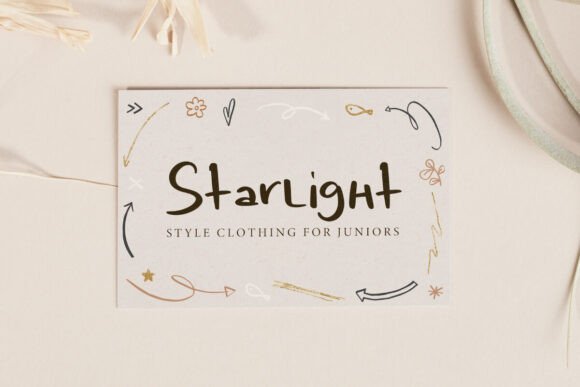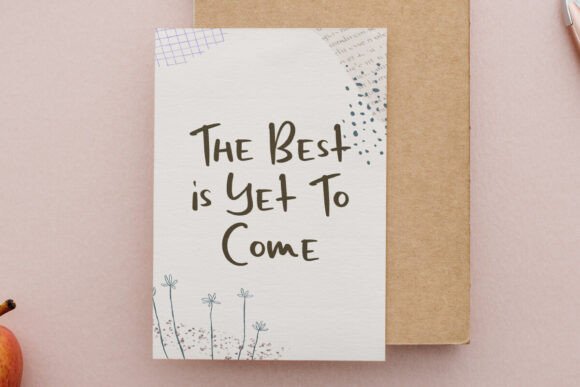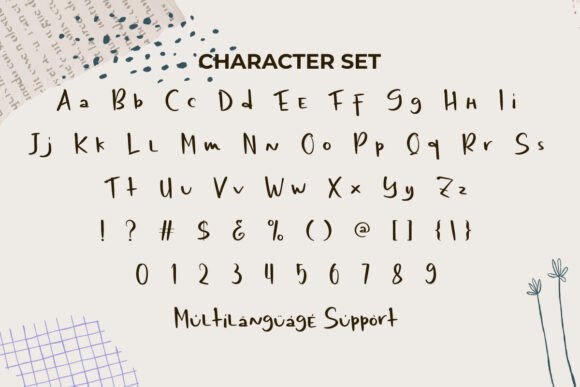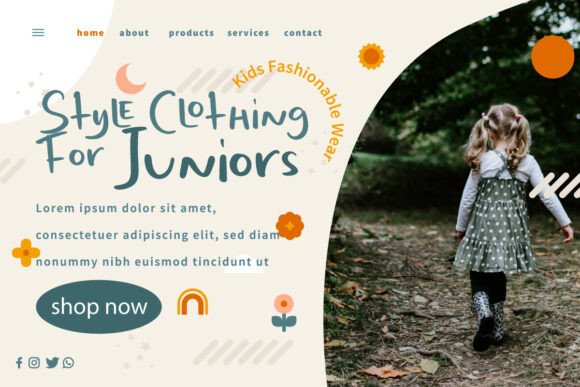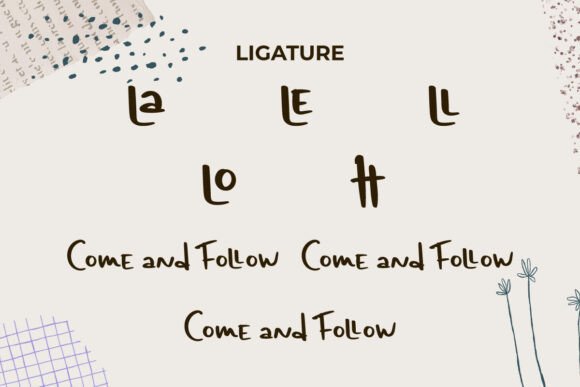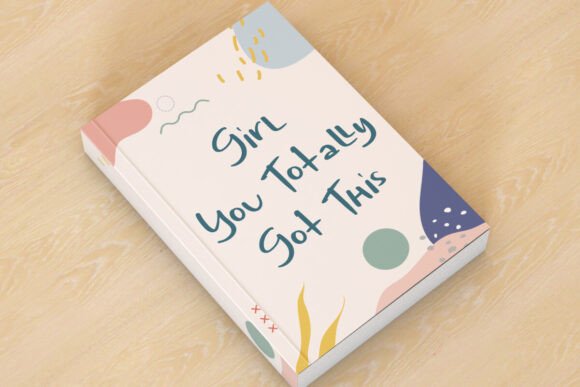
Introducing Come and Follow Font: The Perfect Addition to Your Design Arsenal
Are you tired of using the same old fonts in your designs? Look no further! Come And Follow Font is here to bring a fresh and exciting touch to your creative projects. This fun and friendly font is designed to add a handcrafted feel to your designs, making them stand out from the crowd.
What Makes Come And Follow Font So Special?
Come And Follow Font is a versatile typeface that can be used in a wide range of design applications. Whether you’re working on a blog, brand identity, brochure, business cards, or any other project, this font is sure to brighten up your design. Its unique handcrafted touch gives it a personal and approachable feel, making it perfect for both formal and informal events.
With Come And Follow Font, the design possibilities are endless! Here are some ideas to get you started:
- Blogs: Add a personal touch to your blog posts and make them more engaging with this charming font.
- Brand Identity: Create a unique and memorable brand identity with Come And Follow Font.
- Brochures: Make your brochures stand out with this fun and friendly font.
- Business Cards: Create professional and stylish business cards that will leave a lasting impression.
- Covers: Design eye-catching book covers, magazine covers, or any other type of cover with this versatile font.
- Flyers: Create attention-grabbing flyers for events, promotions, or announcements.
- Greeting Cards: Design personalized and heartfelt greeting cards for special occasions.
- Headers: Add a touch of personality to your website headers or section headings.
- Invitations: Create beautiful and unique invitations for weddings, parties, or other events.
- Logo Design: Use Come And Follow Font to create a custom logo that reflects your brand’s personality.
- Pamphlets: Design informative and engaging pamphlets for educational or promotional purposes.
- Quotes: Create inspiring and visually appealing quote graphics.
- Screen Print: Design stunning screen prints for t-shirts, posters, or other materials.
- Titles: Use Come And Follow Font to create attention-grabbing titles for your designs.
- Websites: Add a personal touch to your website with this charming font.
Why Choose Come And Follow Font?
So, why should you choose Come And Follow Font for your design projects? Here are just a few reasons:
- Unique and Handcrafted: This font has a unique, handcrafted touch that sets it apart from other fonts.
- Versatile: Come And Follow Font can be used in a wide range of design applications, from formal to informal events.
- Easy to Read: This font is clear and easy to read, making it perfect for body text or headings.
- Fun and Friendly: Come And Follow Font has a fun and friendly feel that’s sure to brighten up your designs.
Tips for Using Come And Follow Font
Here are a few tips for getting the most out of Come And Follow Font:
- Experiment with Different Sizes: Try using Come And Follow Font in different sizes to create visual interest and hierarchy.
- Pair it with Other Fonts: Combine Come And Follow Font with other fonts to create a unique and interesting typography combination.
- Use it for Headings: Use Come And Follow Font for headings and titles to add a touch of personality to your design.
- Don’t Be Afraid to Get Creative: Come And Follow Font is a versatile font that can be used in many different ways, so don’t be afraid to experiment and try new things!